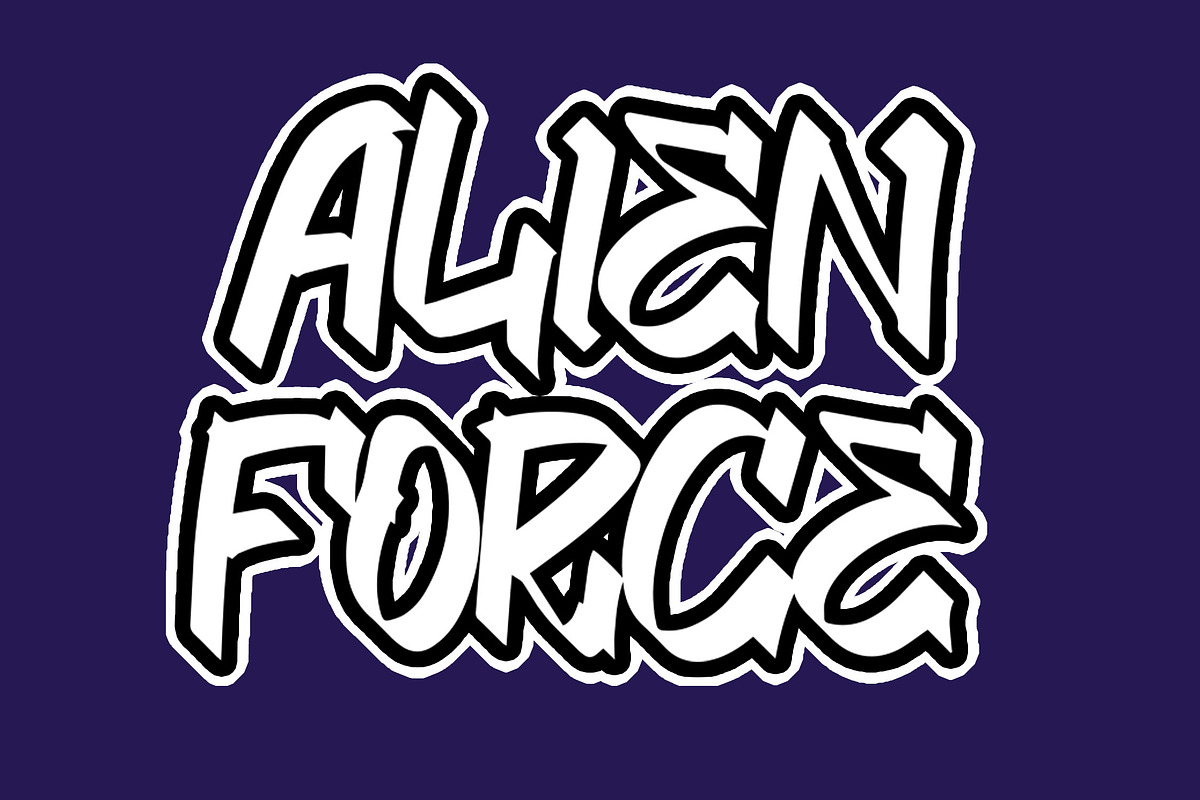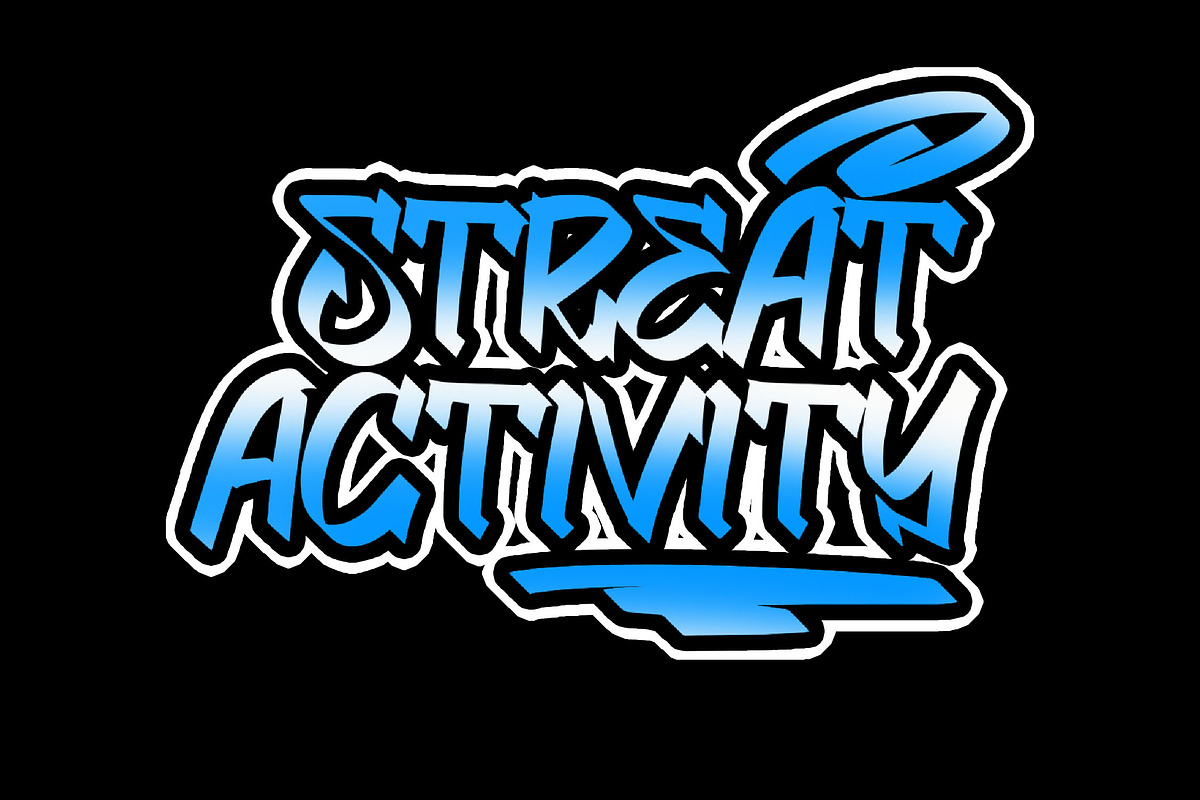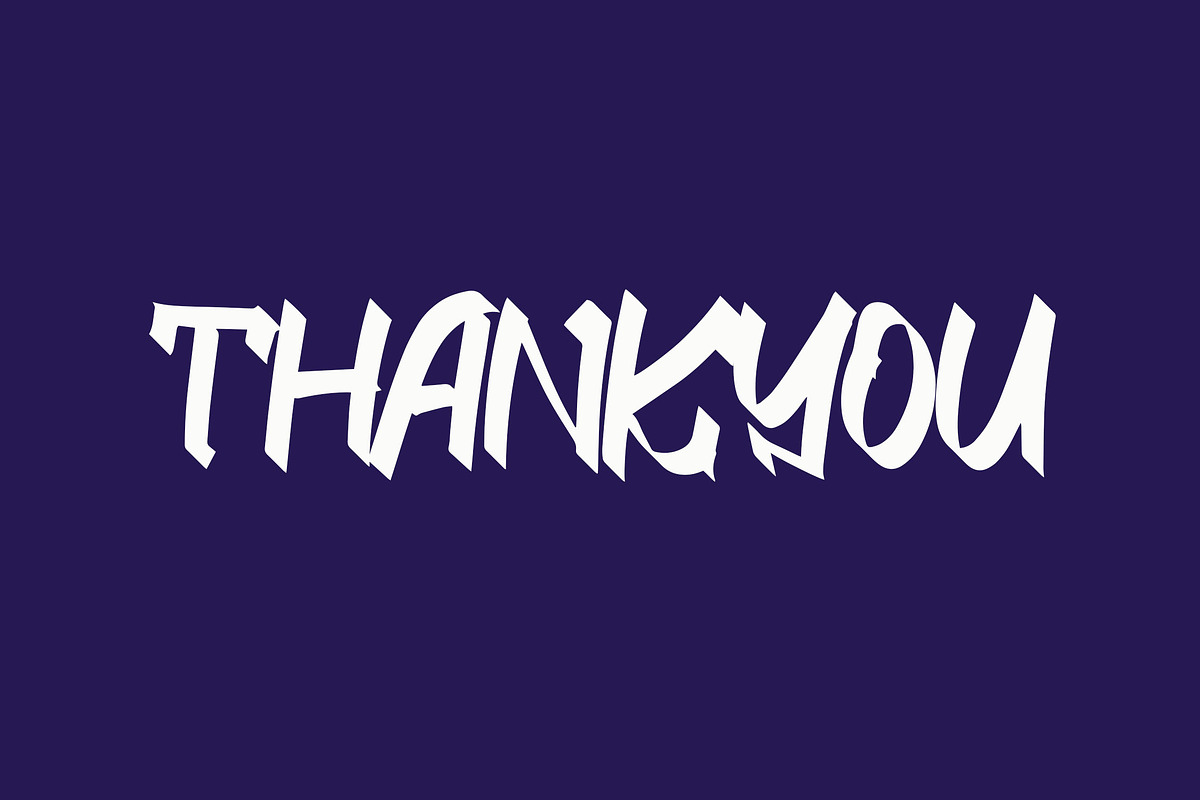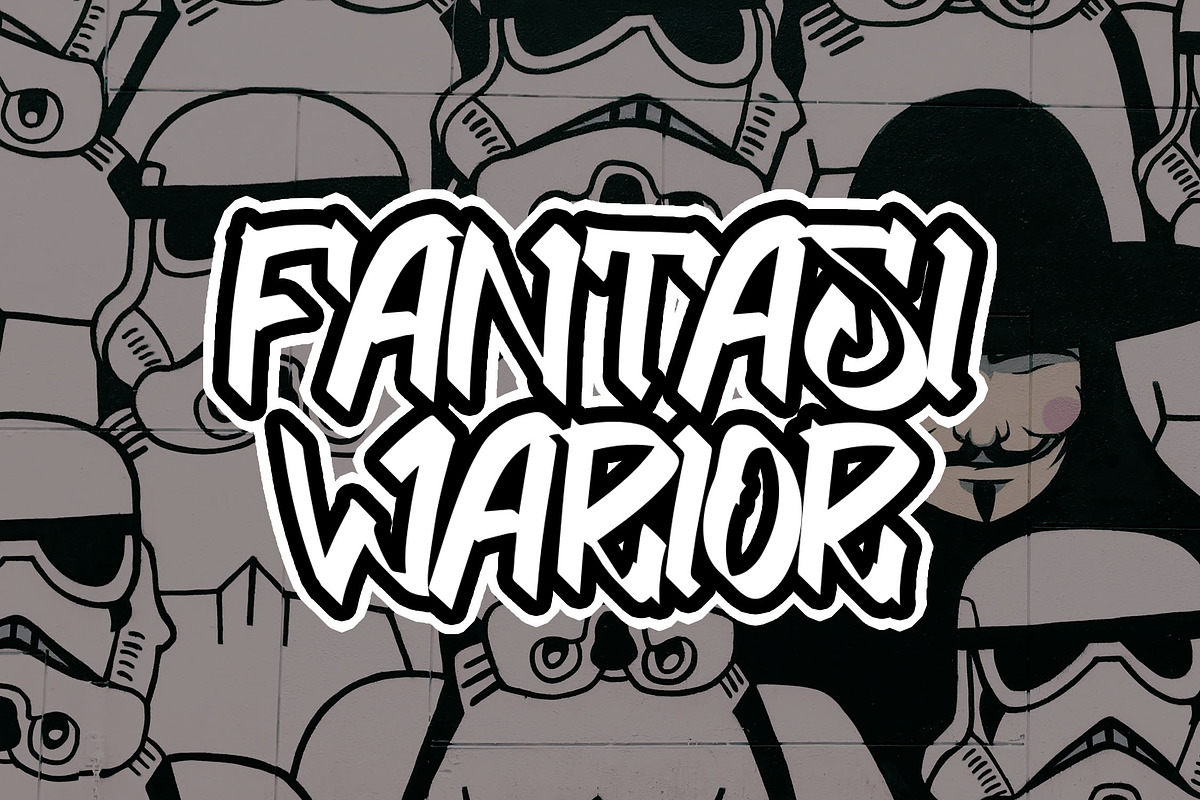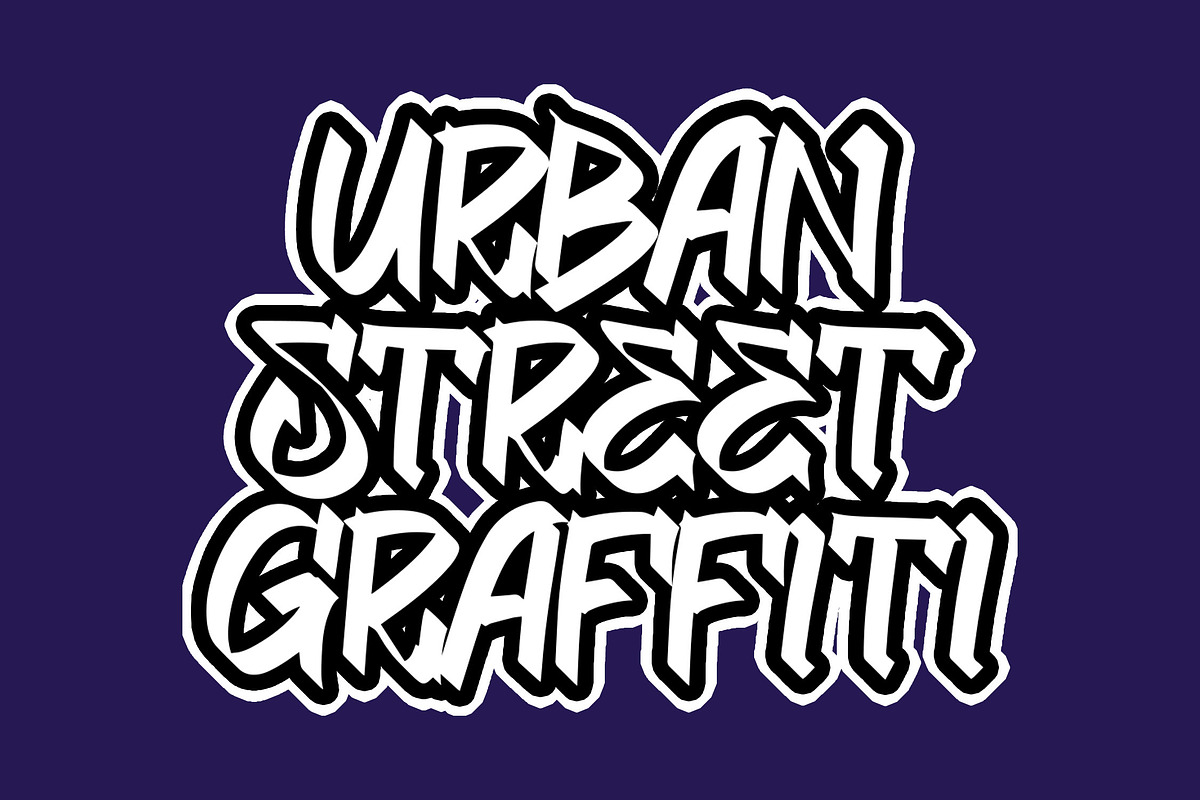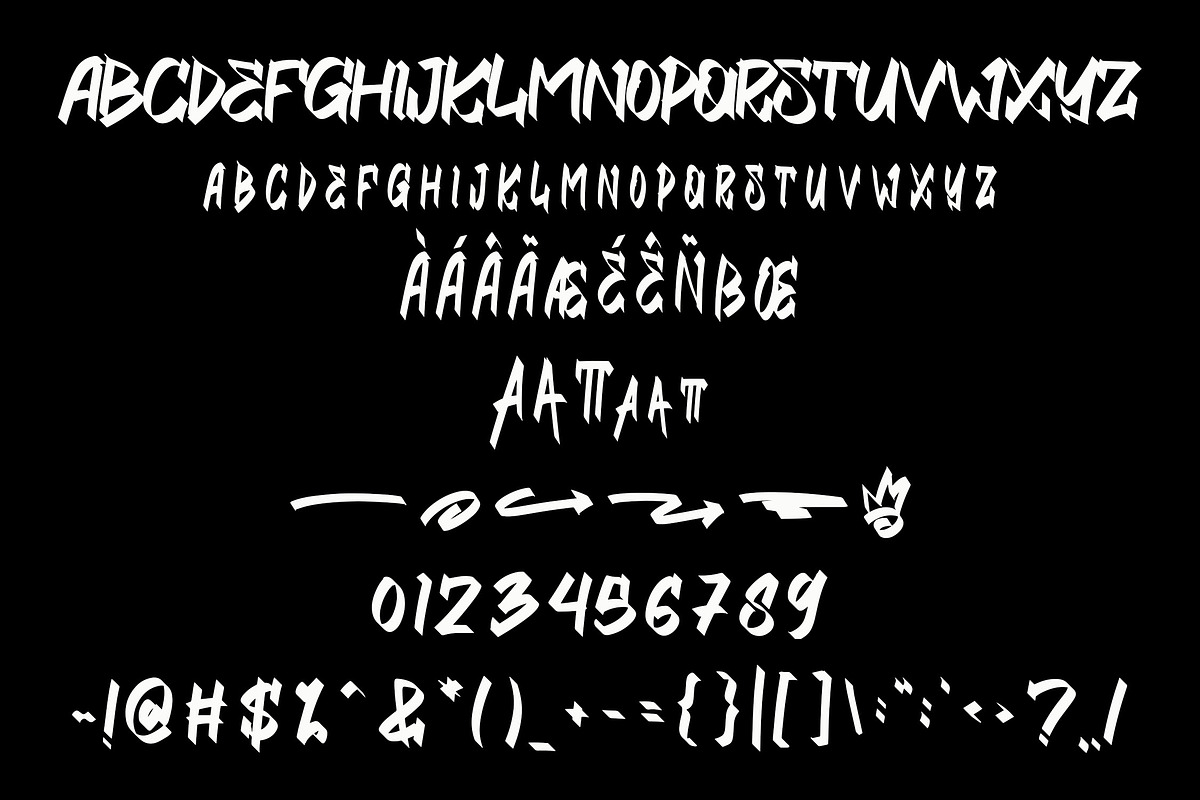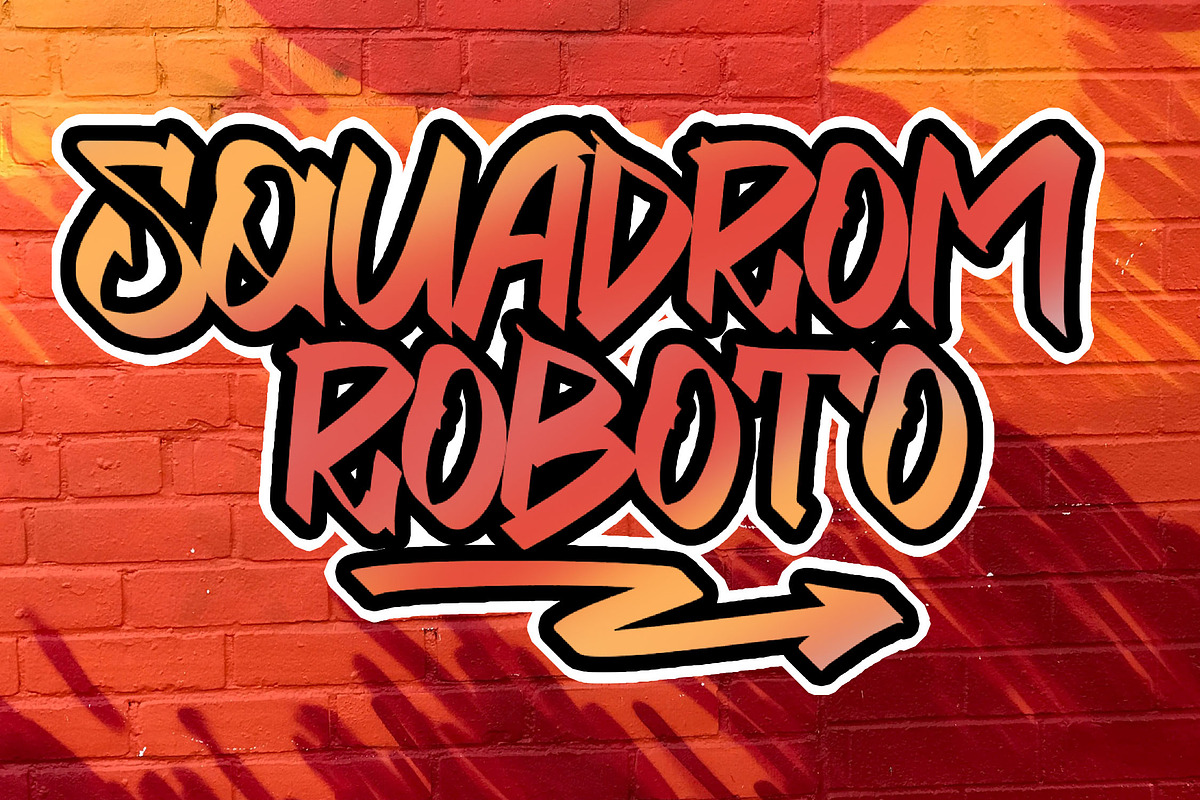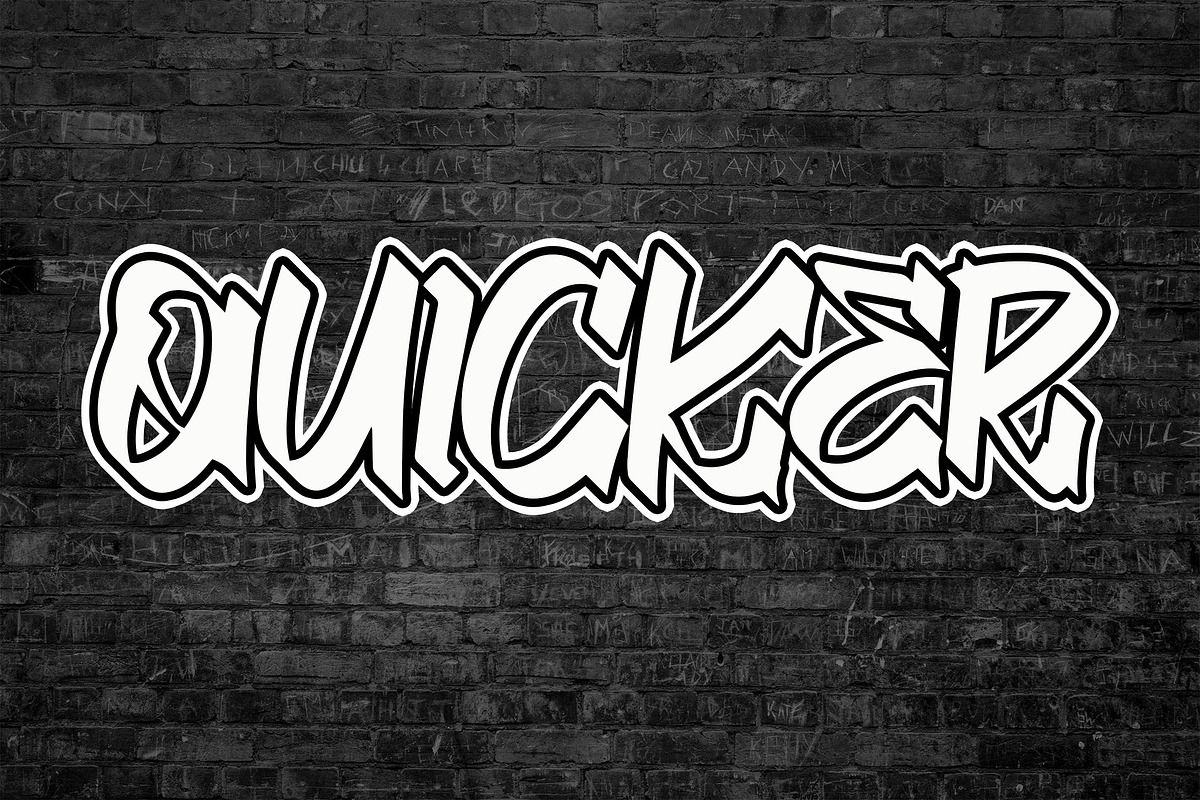
QUICKER Bold Brush Font
QUICKER Brush Font
QUICKER is a bold and dynamic brush font with uniquely crafted character shapes. This font style delivers an impactful and attractive visual appeal, perfect for enhancing the graphic appearance of your products. Whether you're designing for branding, advertising, or merchandise, QUICKER's bold lines and artistic strokes will make your designs stand out.